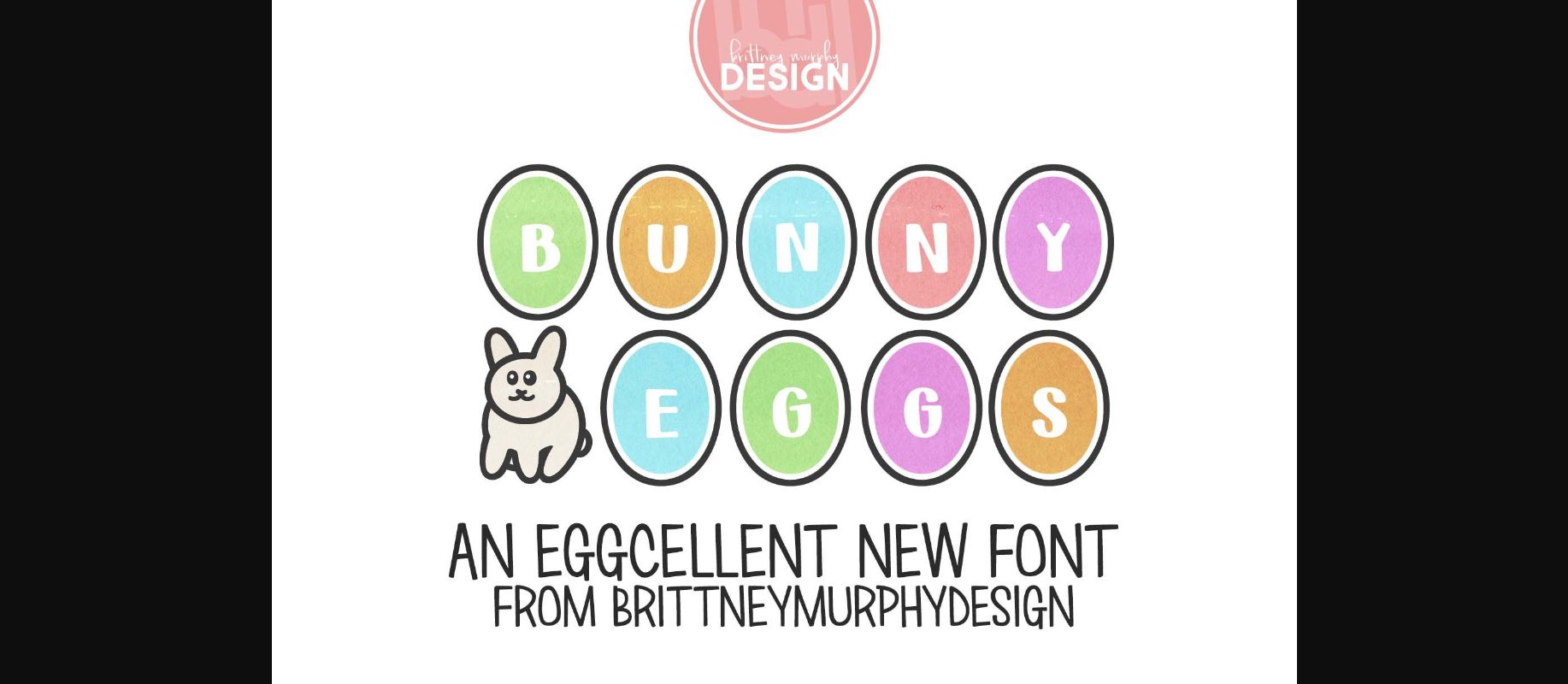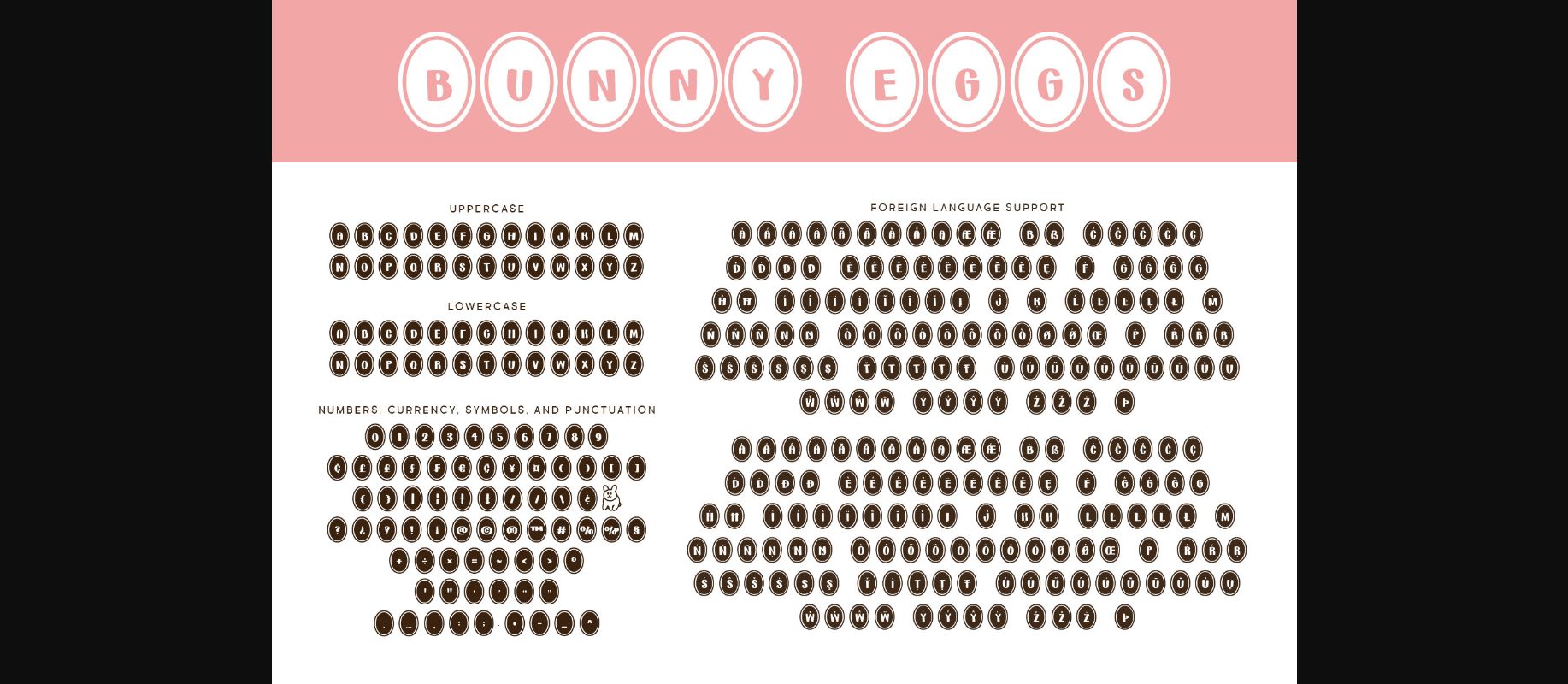
HomeDecorative FontsBunny Eggs Font Decorative Fonts Bunny Eggs Font FacebookXPinterestWhatsApp 1 of 4 ... Bunny Eggs Font Poster 2... Bunny Eggs Font Poster 3... Bunny Eggs Font Poster 4... About Bunny Eggs Font Bunny Eggs is a fun font with letters encased in egg-like ovals. Mix the colors up for a cute Easter egg design! Use the asterisk * for the bunny! DOWNLOAD NOW People also explored Nextron Rounded Font Fallind Font Loving Hearty Font Phillia Font Ranoya Font Mermaid Font Charlbury Script Font Grover Font Robery 320 0 TagsBunny Eggs Font Previous articleGroovy Marble FontNext articleSpring Drops Font LEAVE A REPLY Cancel reply Comment: Please enter your comment! Name:* Please enter your name here Email:* You have entered an incorrect email address! Please enter your email address here Website: Save my name, email, and website in this browser for the next time I comment. Personal Use Free Hatchill Personal Use Free Read more about this font Bestlife Personal Use Free Read more about this font Vuldo Personal Use Free Read more about this font Rozalyn Personal Use Free Read more about this font BLOG Modern Sans-Serif Fonts That Brands Love in 2025 In 2025, modern sans-serif fonts remain a top choice for brands looking to project clarity, professionalism, and... Free vs Paid Fonts: Why Investing in Premium Fonts Is Worth It The 10 Best Handwriting Fonts to Add Personality to Your Designs Fonts That Capture the Spirit of New York City